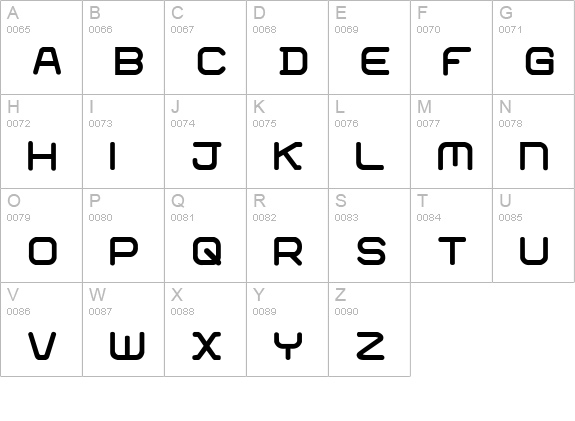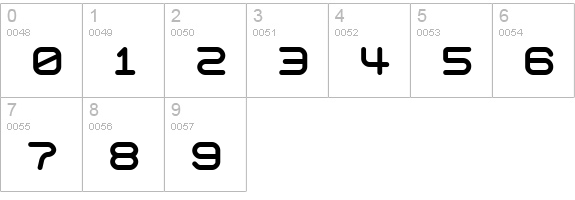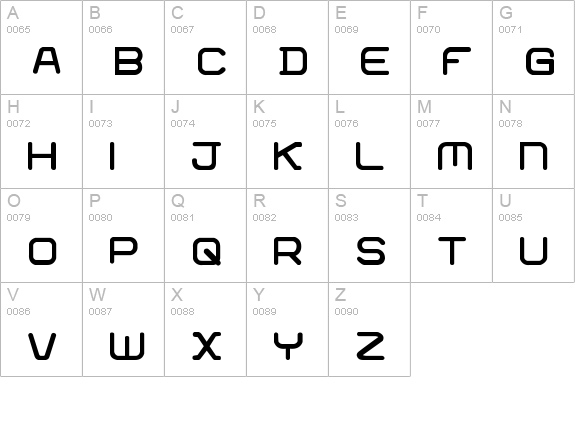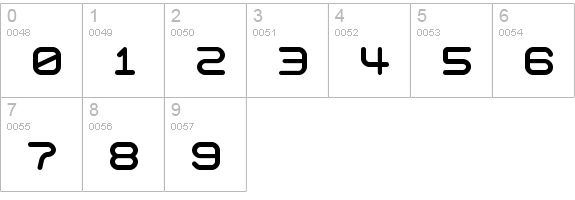
01 DigitGraphics font is a modern and sleek typeface that is perfect for adding a digital touch to your designs. With its clean lines and sharp edges, this font is ideal for creating eye-catching graphics and visuals. The futuristic look of 01 DigitGraphics font makes it a great choice for technology-related projects, gaming content, and digital art. What's even better is that this font is available for free download at FontsMarket.com. You can easily access this versatile font and use it in your personal and commercial projects without any cost. Don't miss out on the opportunity to enhance your designs with the stylish and dynamic 01 DigitGraphics font today!